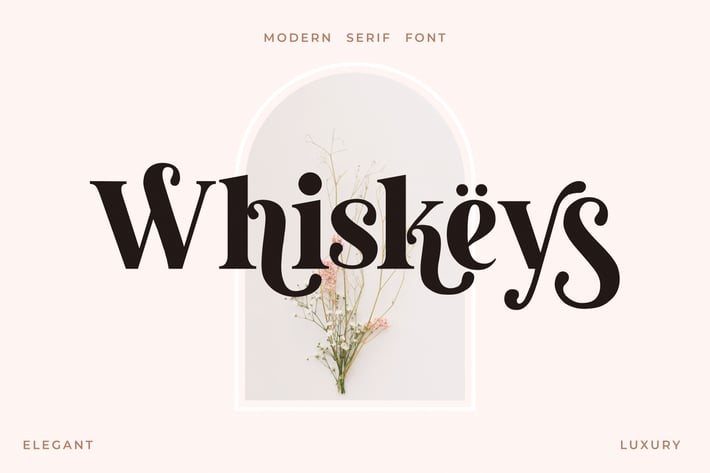
Whiskeys - Modern Serif Fonts
Introducing "Whiskeys" font - a modern serif font tailored for contemporary design needs. With its sleek style and timeless elegance, Whiskeys is the ideal choice for a wide range of projects, from branding endeavors to logo design, clothing branding, and packaging. Its versatility extends to magazine headings, advertising materials, T-shirts, postcards, and beyond. Whatever the project, Whiskeys adds a touch of sophistication and professionalism.
This modern serif font boasts a unique flair, characterized by its lightness and high contrast. Its distinct style makes it particularly well-suited for feminine logo signs, fashion headings, and editorial designs. Whether you're crafting a chic brand identity or curating a trendy fashion spread, Whiskeys brings a refined aesthetic that captivates attention and elevates your visuals to new heights.